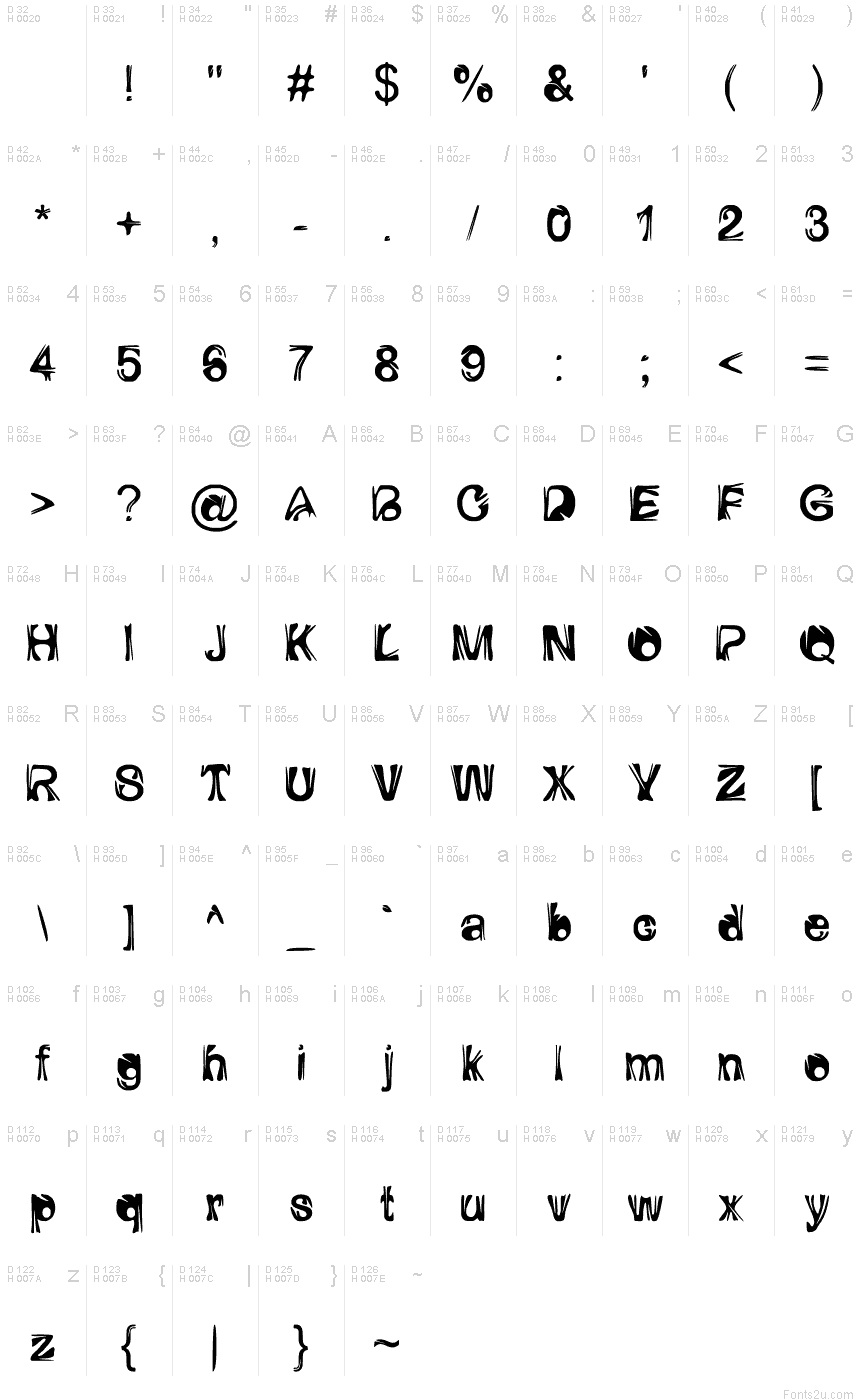
G_Cut_off
G Cut Off font by Hermann Günthel is a free decorative display typeface that looks like it’s been carved out of thick, inky paper. Each letter in the G1 family feels hand-cut and slightly off-kilter, with bold, rounded masses and sharp inner slices that create a playful push–pull of positive and negative space. The result is loud, tactile, and a bit mischievous—like signage from a surf shack or underground club flyer, blown up and digitized.
Using G Cut Off, your titles grab attention in an instant and stay readable thanks to the chunky, unified rhythm across the alphabet. This free font shines on gig posters, album covers, festival branding, funky packaging, kids’ event graphics, and bold social media headers. Keep it big and give it room to breathe; pair with a clean, understated sans serif for body text to let those cut-out shapes do the talking.